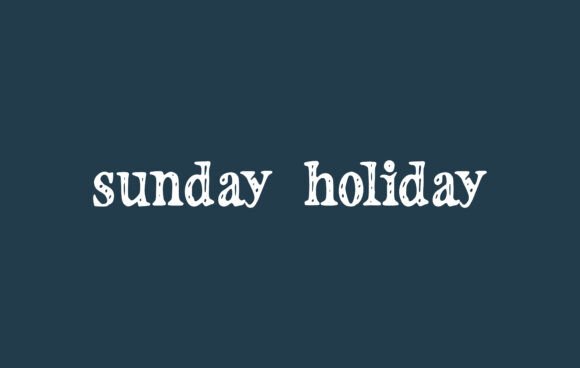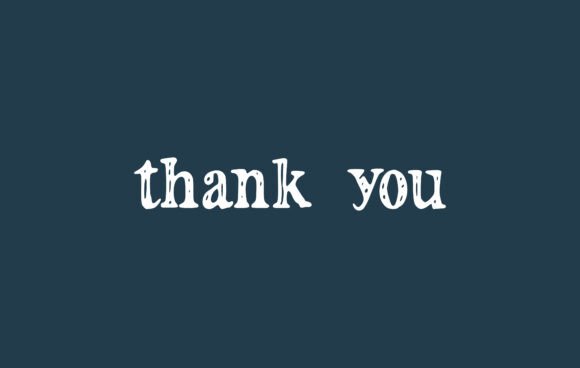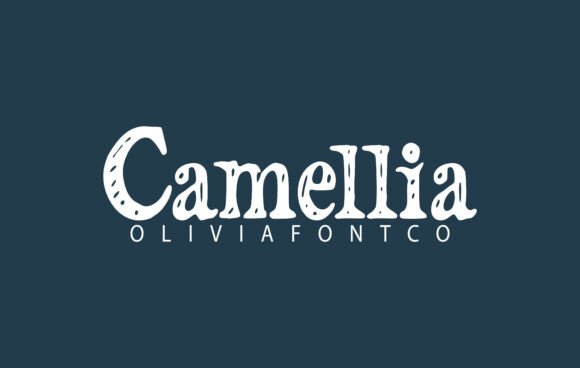
Introducing Camellia Font: The Perfect Handwritten Font for Your Creative Projects
Are you looking for a font that can add a touch of romance and elegance to your designs? Look no further than Camellia Font, an authentic handwritten font that is sure to become a true favorite among designers and crafters. With its unique blend of sophistication and playfulness, Camellia Font is the perfect choice for a wide range of creative projects, from magazine headlines and social media graphics to wedding invitations and branding materials.
The Characteristics of Camellia Font
Camellia Font is an expertly designed handwritten font that boasts a romantic touch. Its flowing lines and delicate curves give it a feminine and elegant feel, making it perfect for designs that require a touch of sophistication. The font is highly legible, making it suitable for use as both title and body text. Whether you’re looking to create a stunning headline or a beautiful paragraph of text, Camellia Font is the perfect choice.
The Versatility of Camellia Font
One of the best things about Camellia Font is its versatility. This font can be used for a wide range of design projects, including:
• Magazine headlines: Add a touch of elegance to your magazine headlines with Camellia Font.
• Social media graphics: Create stunning social media graphics that are sure to grab the attention of your followers.
• Branding materials: Use Camellia Font to create beautiful branding materials, such as logos, business cards, and letterheads.
• Wedding invitations: Add a touch of romance to your wedding invitations with Camellia Font.
• Cards and stationery: Create beautiful cards and stationery that are perfect for special occasions.
Why Choose Camellia Font?
So why choose Camellia Font over other fonts? Here are just a few reasons:
• Unique and authentic: Camellia Font is a unique and authentic handwritten font that is sure to stand out from the crowd.
• Highly legible: The font is highly legible, making it perfect for use as both title and body text.
• Romantic and elegant: Camellia Font has a romantic and elegant feel that is perfect for designs that require a touch of sophistication.
• Versatile: The font can be used for a wide range of design projects, making it a great addition to any designer’s toolkit.
Tips for Using Camellia Font
Here are a few tips for using Camellia Font in your designs:
• Use it sparingly: While Camellia Font is a beautiful font, it can be overwhelming if used too much. Use it sparingly to add a touch of elegance to your designs.
• Pair it with other fonts: Camellia Font looks great when paired with other fonts. Try pairing it with a bold sans-serif font for a striking contrast.
• Experiment with colors: Camellia Font looks great in a variety of colors. Experiment with different colors to find the one that works best for your design.
In conclusion, Camellia Font is a beautiful and versatile handwritten font that is perfect for a wide range of creative projects. Its unique blend of sophistication and playfulness makes it a great choice for designers and crafters who want to add a touch of romance and elegance to their designs. With its high legibility and versatility, Camellia Font is sure to become a true favorite among designers and crafters. So why wait? Download Camellia Font today and take your creative projects to the next level!